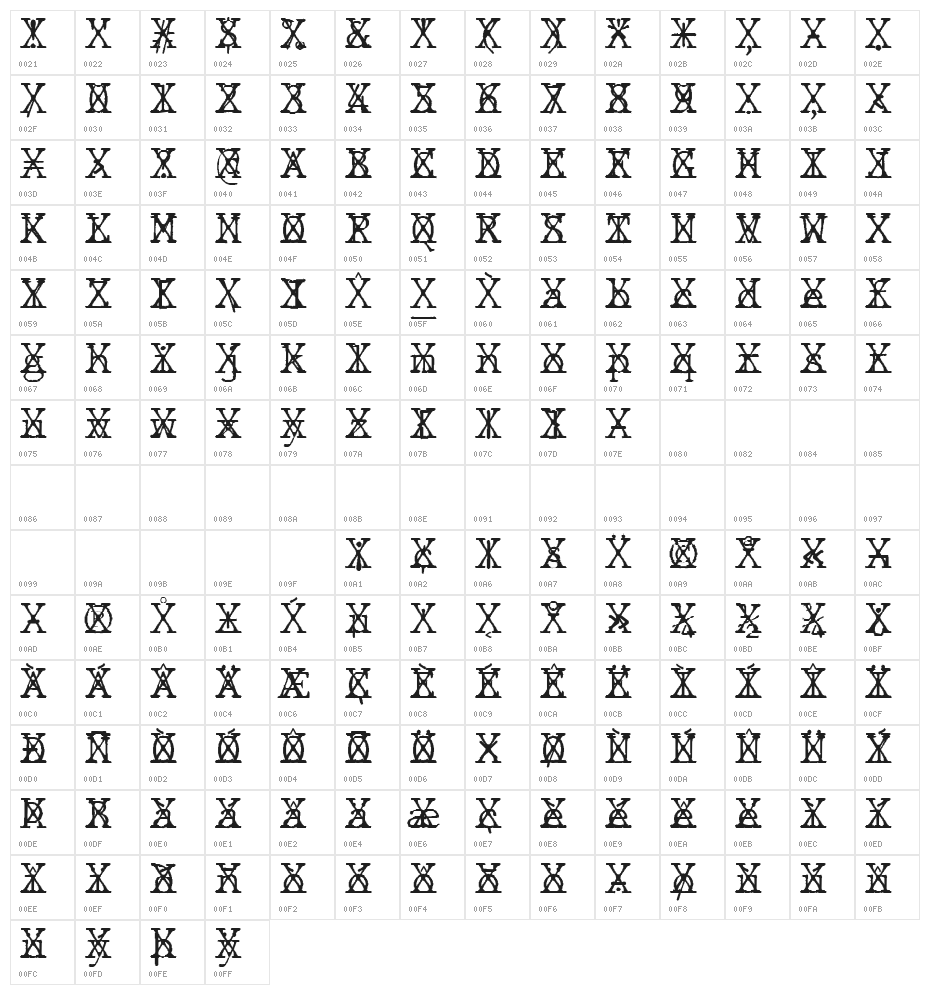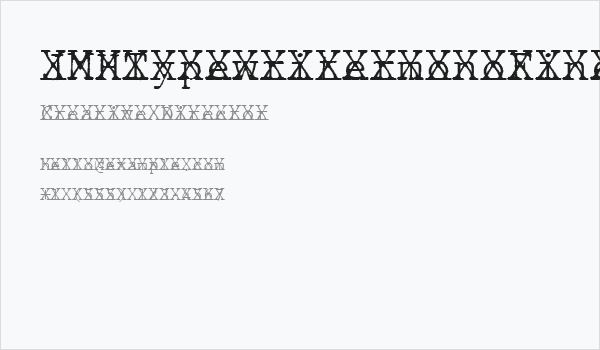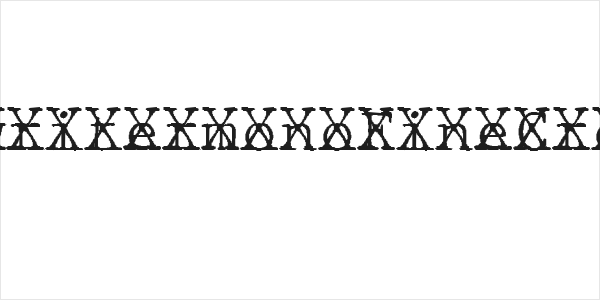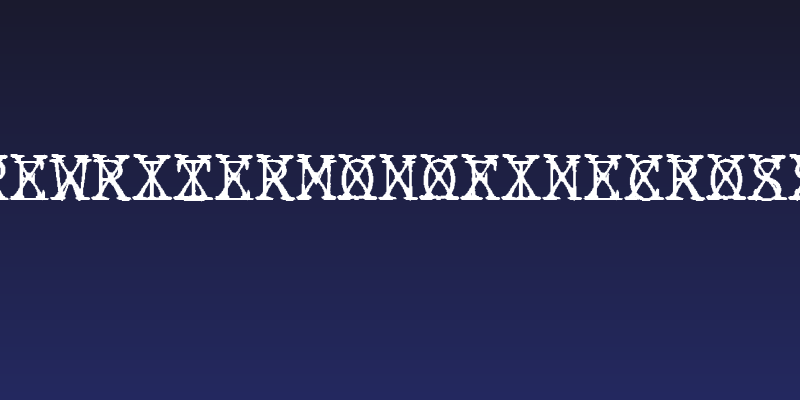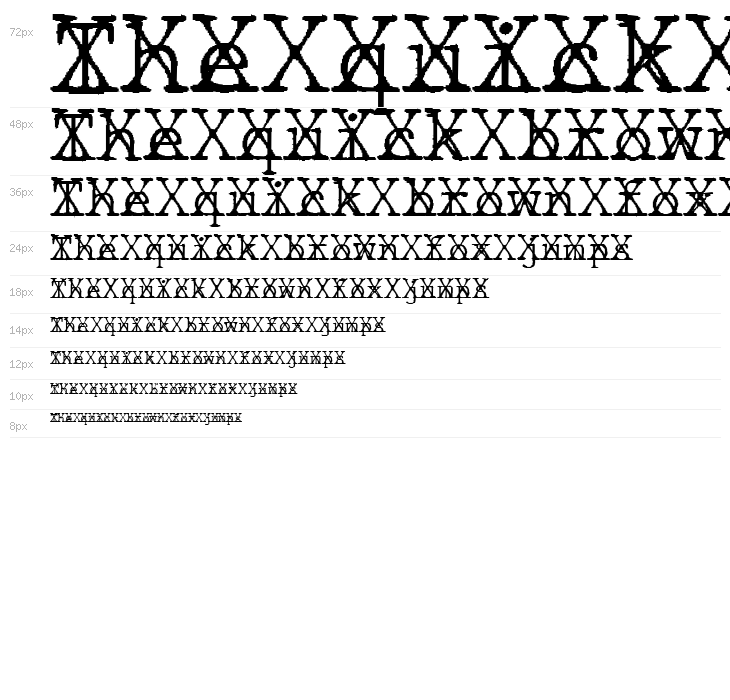
JMHTypewritermonoFineCross-Regu Font
JMHTypewritermonoFineCross-Regu Description
This font features a highly decorative and intricate design, characterized by its unique cross-hatched pattern within each character. The letters are monospaced, maintaining equal width, which is typical of typewriter-style fonts. The elaborate detailing gives it a distinct, artistic appearance, making it stand out for creative projects. Despite its complexity, the font maintains legibility, with each character clearly defined. The style is reminiscent of vintage typewriter fonts but with a modern twist due to its decorative elements.
| Use Case | Logos, Artistic projects, Vintage designs |
| Proposed Projects | Ideal for artistic projects, vintage-themed designs, and creative branding materials. |